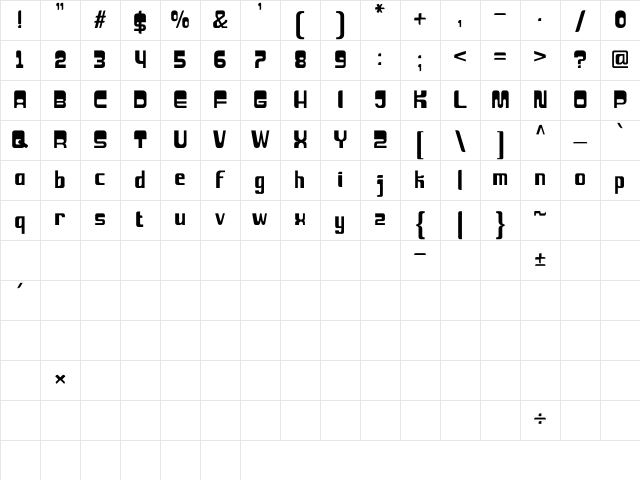
Sabtoun Regular Free Font
Sabtoun Regular
Designer: Dasep Sumarjani
Design Context for Sabtoun
Sabtoun is a composed and adaptable typeface that performs quietly and consistently across a wide range of design contexts.